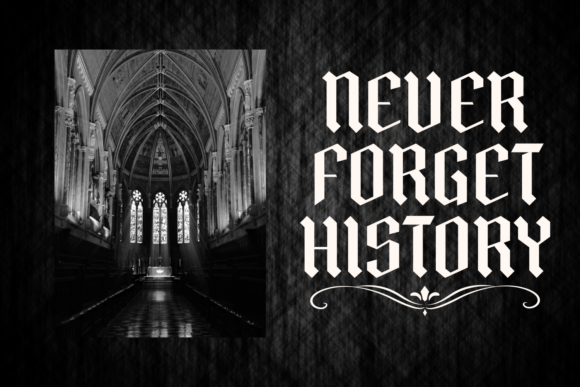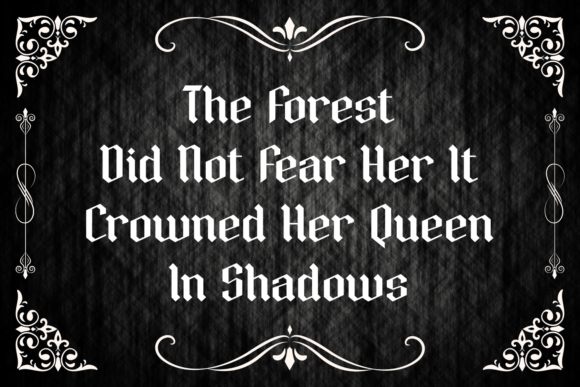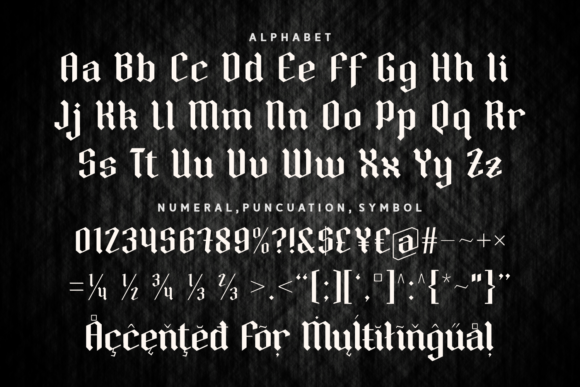
The Magic of High Rock Font: A Designer’s Best Friend for Fantasy and Gothic Themes
I’ll never forget the time I was working on a Halloween-themed project for a client, and I just couldn’t find the right font to capture the spooky, mystical vibe I was going for. I scoured the internet, tried out dozens of fonts, but nothing seemed quite right. That was until I stumbled upon High Rock, a classic blackletter font that instantly transported me to a world of medieval fantasy and eerie landscapes. In this article, I’ll share my love for High Rock, its features, and how to make the most of it in your designs.
An Honest Review of High Rock Font
What I Love About High Rock ✨
• ✅ Traditional, angular, and historical gothic style that screams medieval fantasy
• ✅ Perfect for early autumn and spooky season themes, such as Halloween and Thanksgiving
• ✅ Ideal for tattoo designs, labels, and projects requiring a strong, bold look
• ✅ Highly legible, even at small sizes
While High Rock is an amazing font, it’s not without its quirks. For example:
• 🤔 Some letters may appear a bit condensed, which can affect readability in certain contexts
• ⚠️ Limited support for non-English characters, so make sure to check compatibility before use
A Practical Guide to Using High Rock Font
The Backstory of High Rock Font
High Rock’s design inspiration is rooted in traditional medieval art and Gothic architecture. Its creator, a talented type designer, drew inspiration from ancient manuscripts and stone carvings to craft a font that would evoke a sense of mystery and grandeur. The result is a font that’s both elegant and bold, perfect for designs that require a touch of history and fantasy.
Author Creative Fabrica Fonts
What is High Rock font best used for? High Rock is ideal for fantasy themes, tattoo designs, labels, and projects requiring a strong, medieval feel.
Is High Rock font suitable for body text? While High Rock is highly legible, it’s best used for headings and titles due to its bold, blackletter style.
Is High Rock font available in different weights or styles? High Rock comes in a single weight, but its OpenType features allow for some flexibility in terms of stylistic alternates and glyphs.